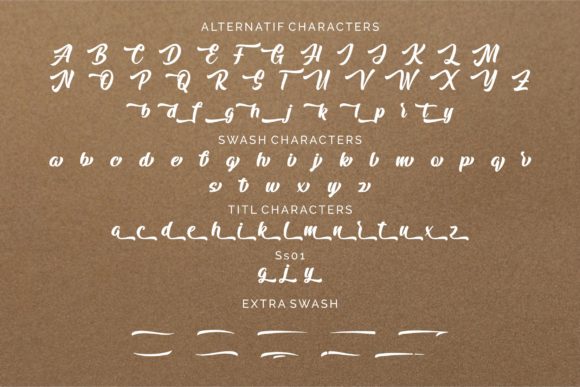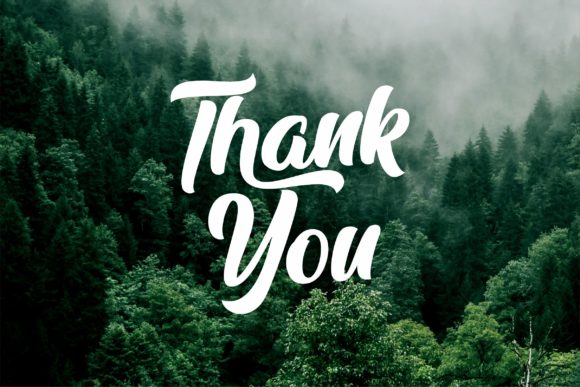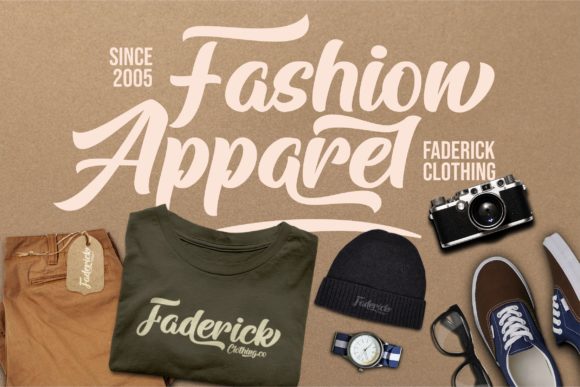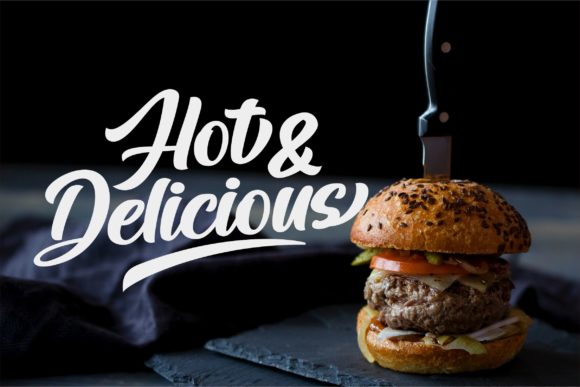
About Arfelick Feather Font
Arfelick Feather is an exquisite handwritten font, masterfully designed to become a true favorite. It maintains its classy calligraphic influences while feeling contemporary and fresh. Fall in love with it and bring your projects to the highest levels! This font is PUA encoded which means you can access all of the glyphs and swashes with ease! It features a varying baseline, smooth lines, gorgeous glyphs and stunning alternates.